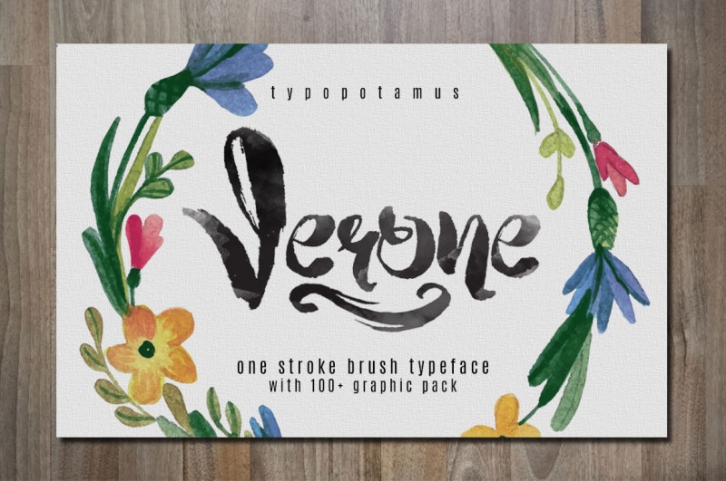
Verone is a 100% handmade typeface. Brought to give you a sweet, romantic handmade typographic style.
Complete lower-case and upper-case alphabet, punctuations, symbols, multi languages, ligatures and alternate style are included.
Also bonus with 100+ vector ornament to make your design even more awesome.
The typeface is great for : invitations logos quotes headings t-shirt letterhead signage labels news posters etc.